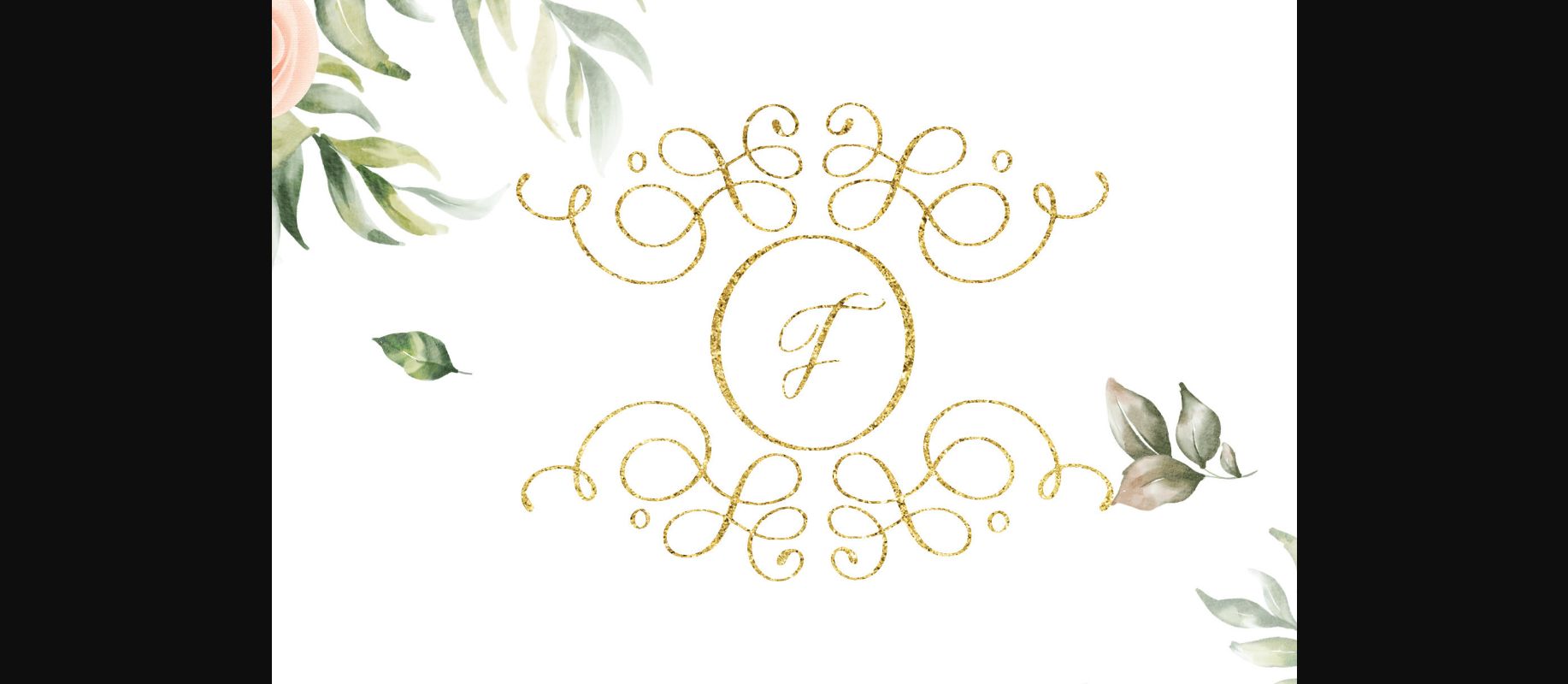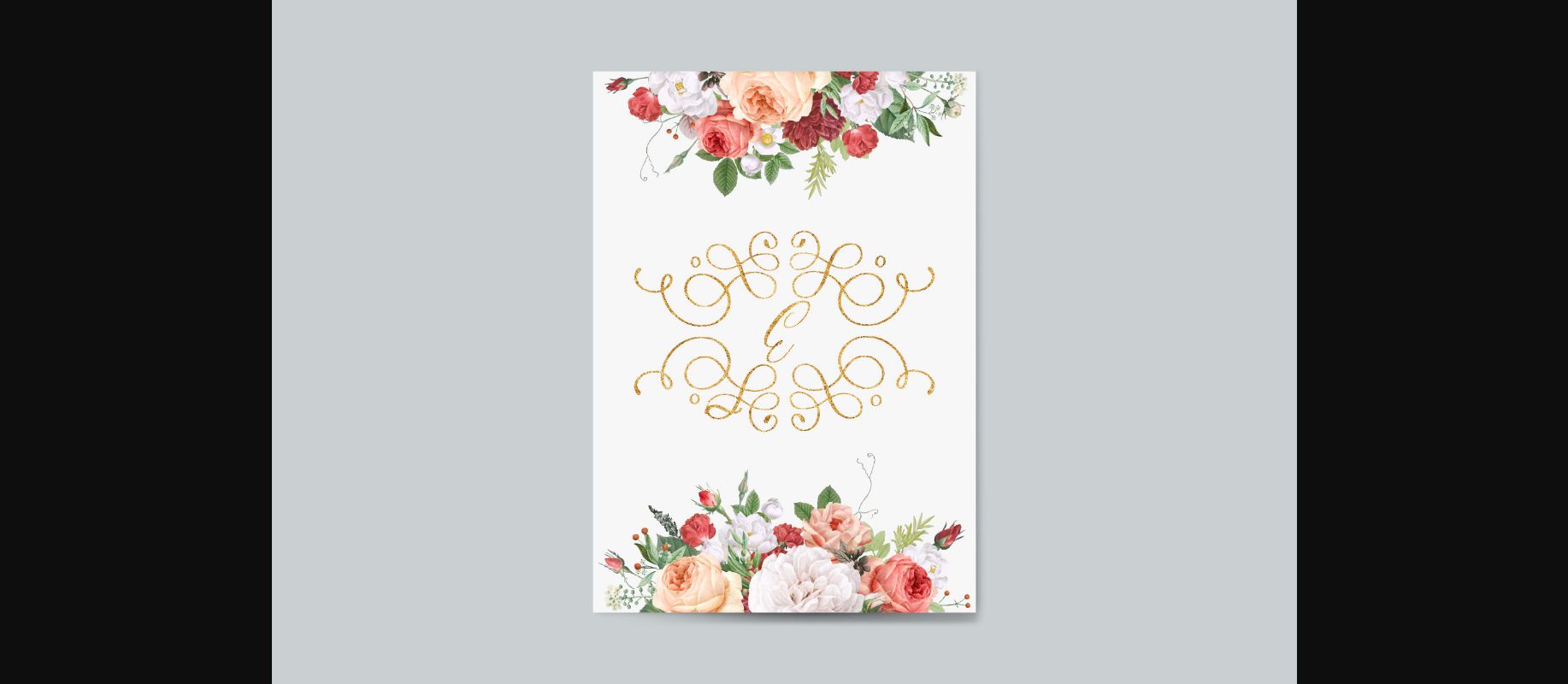
HomeDecorative FontsSwirl Monogram Font Decorative Fonts Swirl Monogram Font FacebookXPinterestWhatsApp 1 of 4 ... Swirl Monogram Font Poster 2... Swirl Monogram Font Poster 3... Swirl Monogram Font Poster 4... About Swirl Monogram Font Swirl Monogram is a dainty and unique decorative font. Add this romantic and lovely looking font to each of your love letters, wedding invitations or favorite design ideas, and you will be astounded by the outcome. DOWNLOAD NOW People also explored Kids Park Font Hot Sun Font Sadwell Font Darka Font Gaston Villa Font Sunlight Font Amore Boutique Font The Beelly Font Sweet Rainbow Font 317 0 TagsSwirl Monogram Font Previous articleHello Monogram FontNext articleMister Nightmare Font LEAVE A REPLY Cancel reply Comment: Please enter your comment! Name:* Please enter your name here Email:* You have entered an incorrect email address! Please enter your email address here Website: Save my name, email, and website in this browser for the next time I comment. Personal Use Free Konexio Personal Use Free Read more about this font Budmo Personal Use Free Read more about this font Street Cred Personal Use Free Read more about this font Adelia Font Personal Use Free Read more about this font BLOG How to Install and Use Fonts on Windows, macOS, and Web Projects How to Install and Use Fonts on Windows, macOS, and Web Projects Fonts are a crucial part of design and branding. Whether you’re designing a... Transform Your Website: Elevate Your Typography with 7 Best Web Font Generators Fonts That Capture the Spirit of New York City Best Fonts for T-Shirt Design – Top 2025 Picks